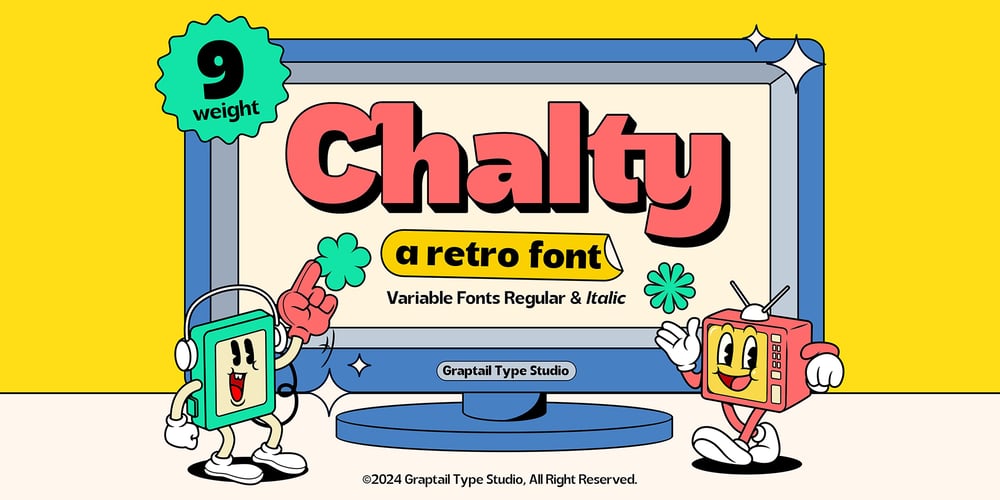
Chalty Font Family was designed by Teuku Deky Firnanda and published by Graptail. Chalty contains 16 styles and family package options. Introducing Chalty – Retro Font Family, a captivating sans serif font family with 18 carefully crafted variations designed to infuse a unique retro touch into your designs. This font seamlessly combines the elegance of modern sans serif typography with a nostalgic nod to the retro era, creating the perfect blend of past and present.With a diverse set of 18 included fonts, Chalty Font offers maximum flexibility to meet all your design needs. Each font variant has been thoughtfully created to evoke distinctive impressions, ranging from bold expressions to subtle softness, suitable for various creative projects.Every letter in Chalty Font boasts clean lines and geometric shapes reminiscent of classic typographic designs from the 80s and 90s. The entire font family conveys a strong message, radiating confidence and timeless style.